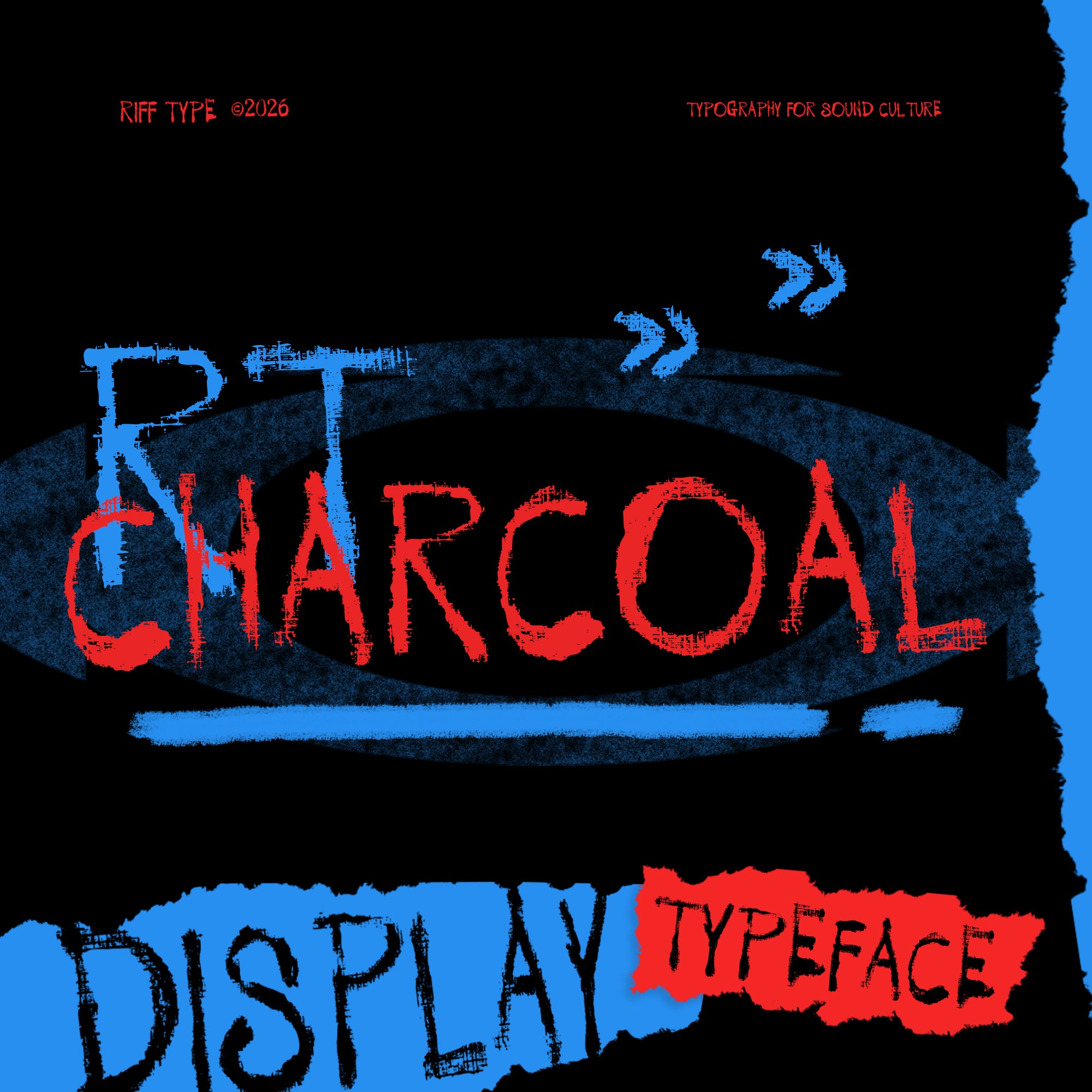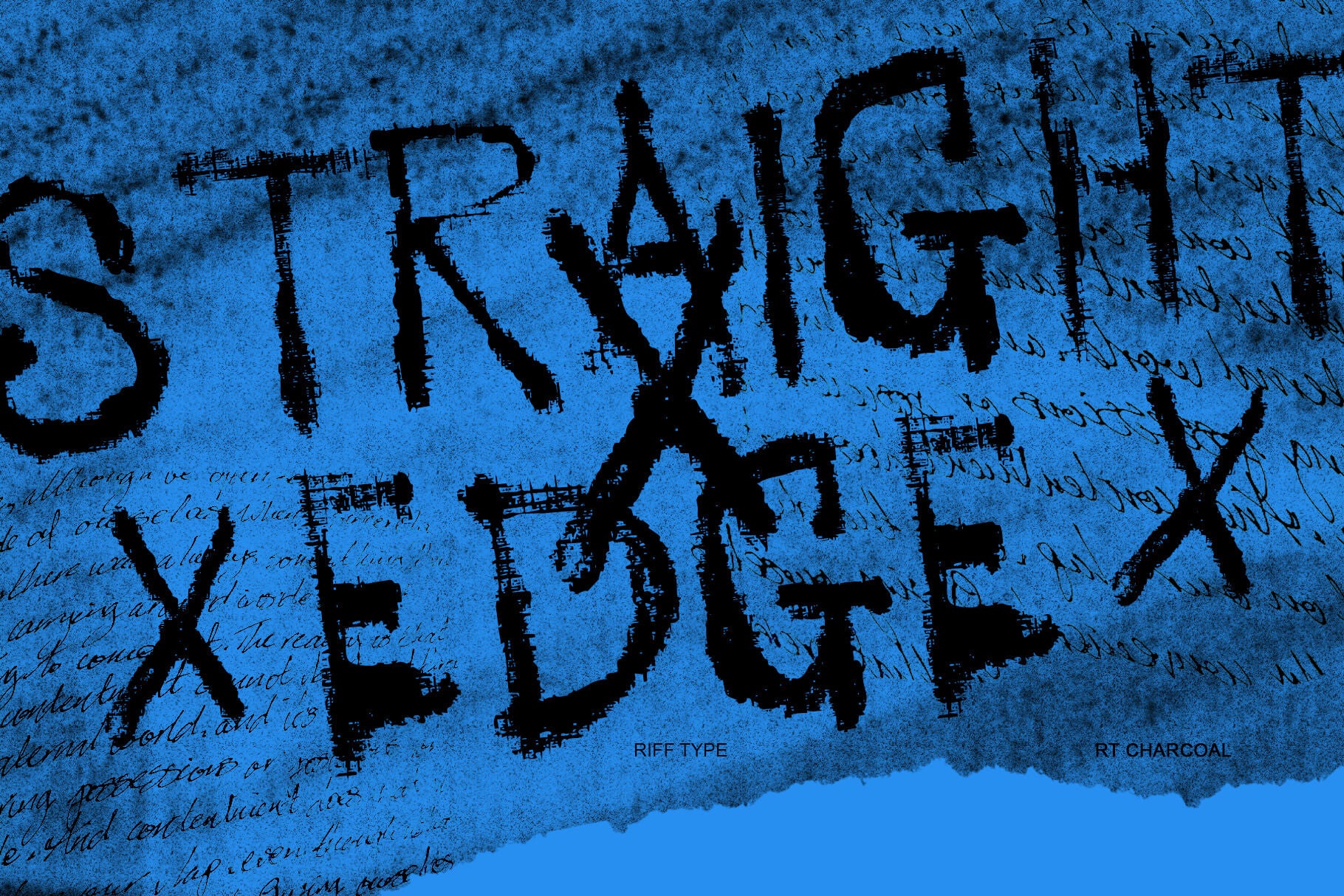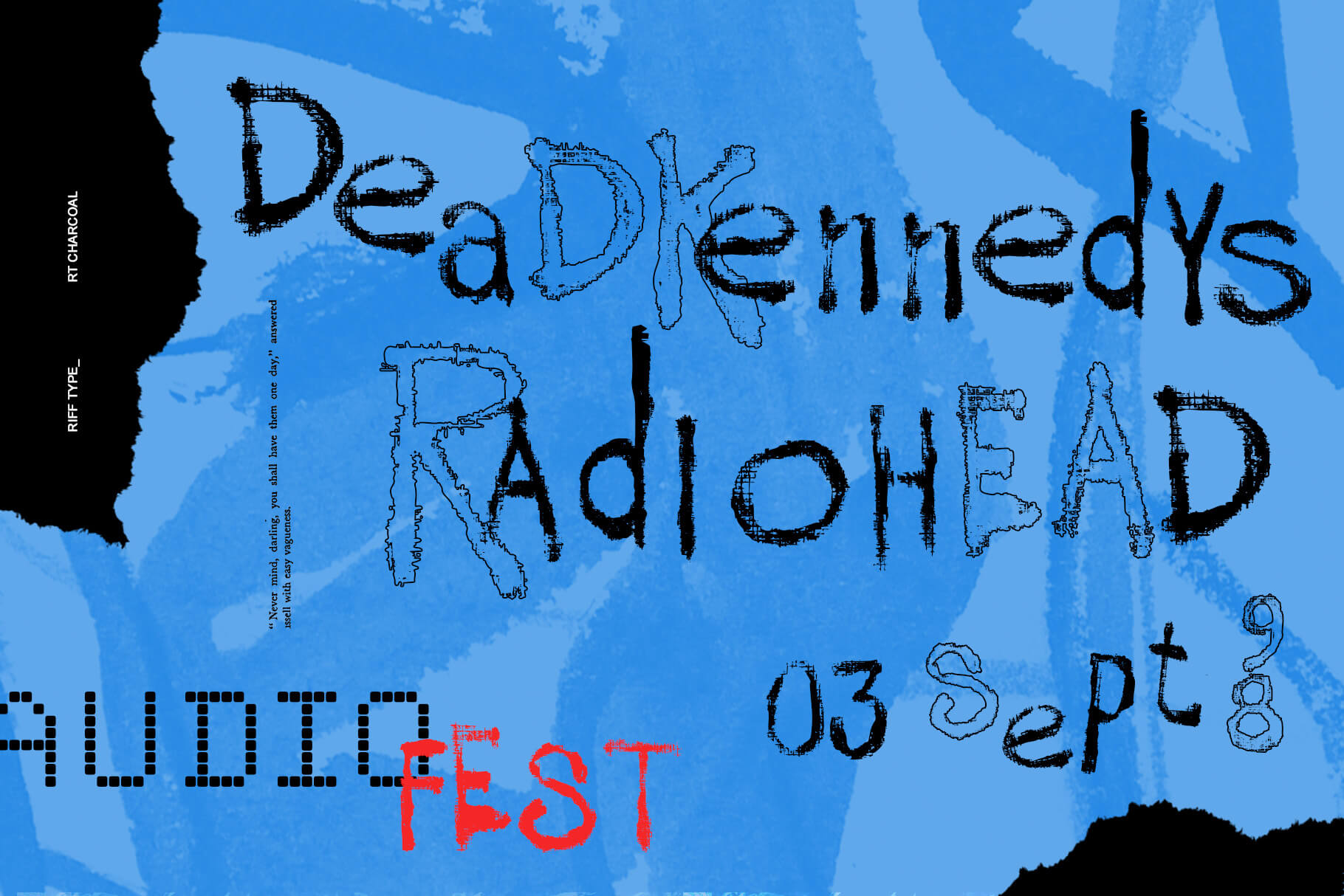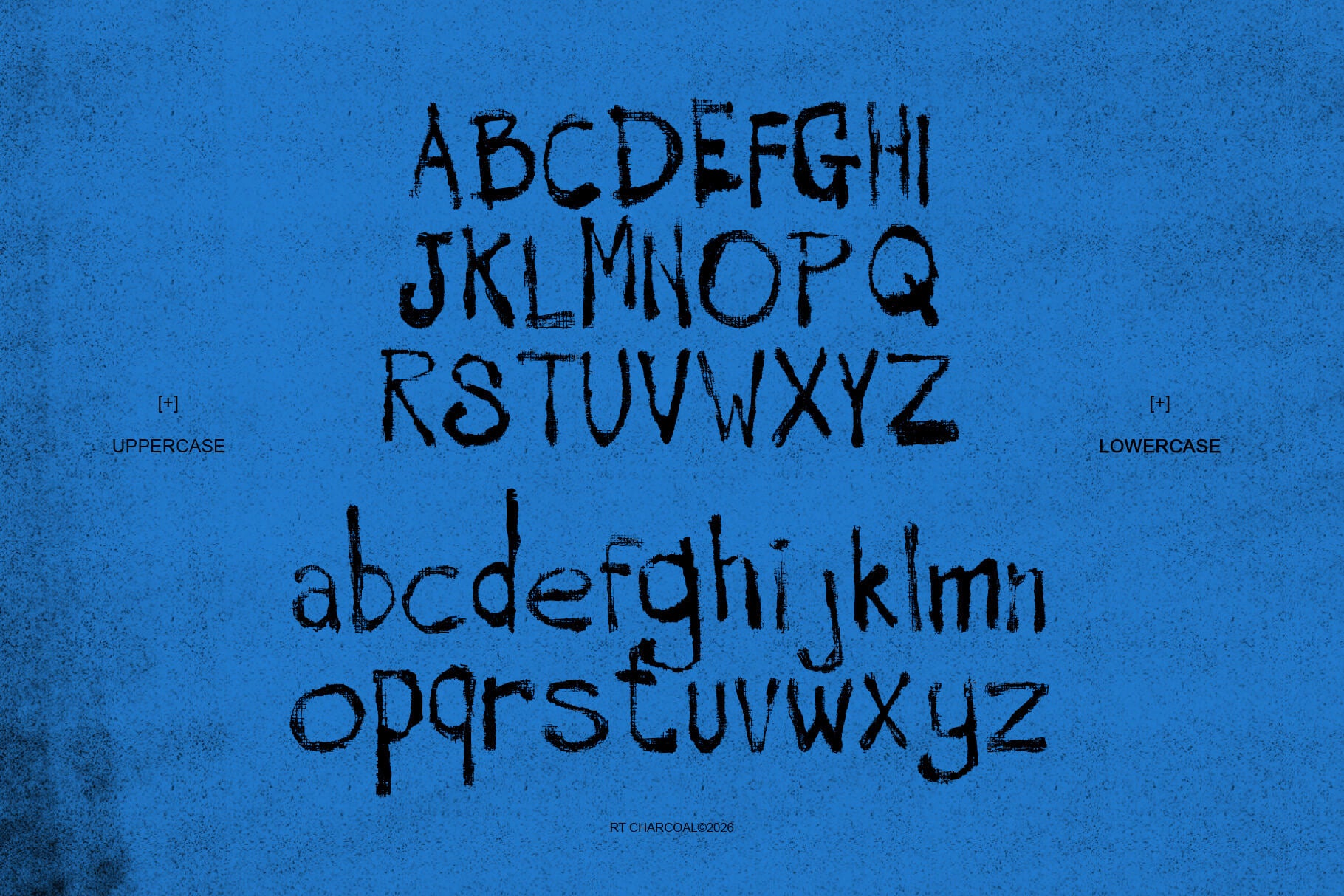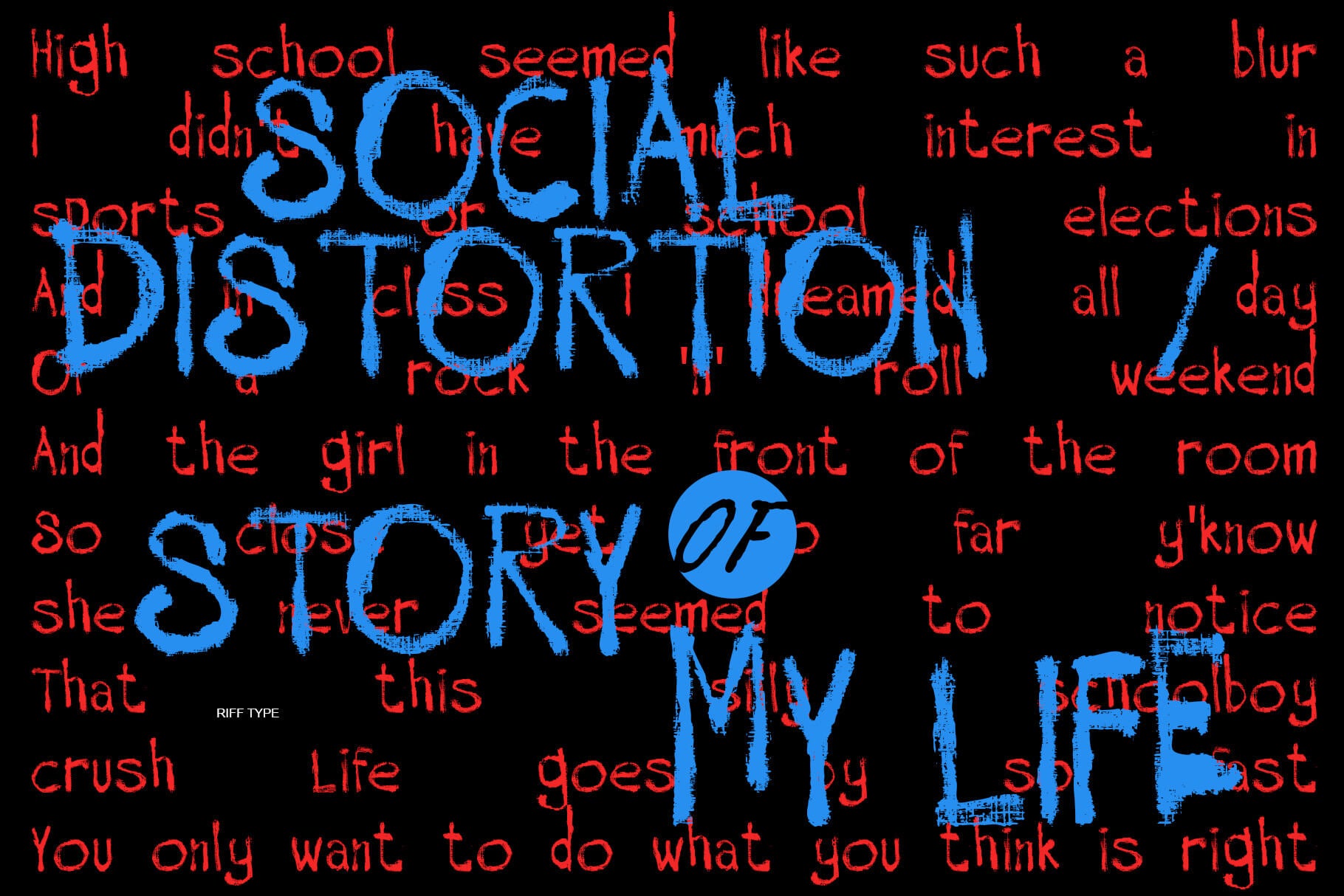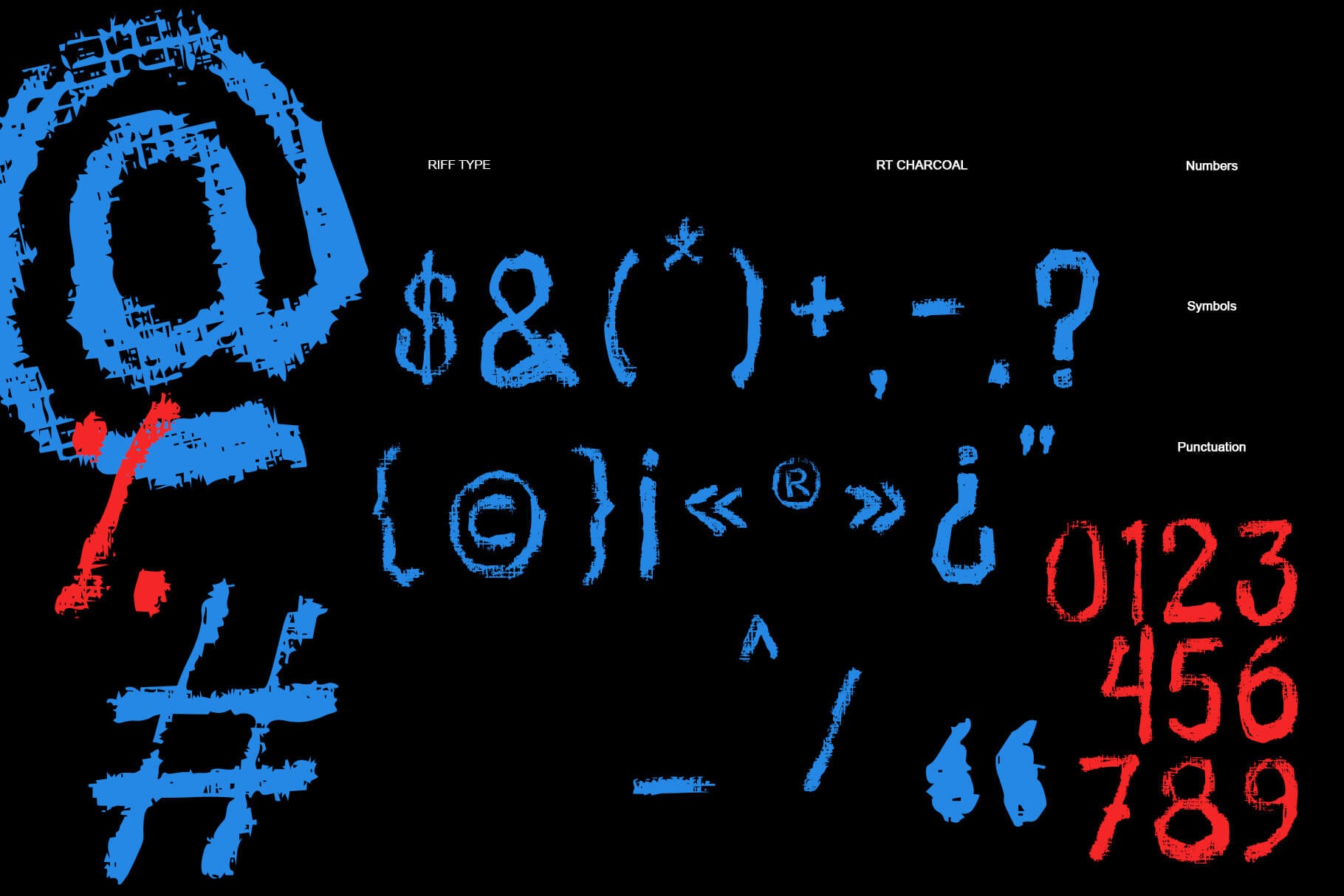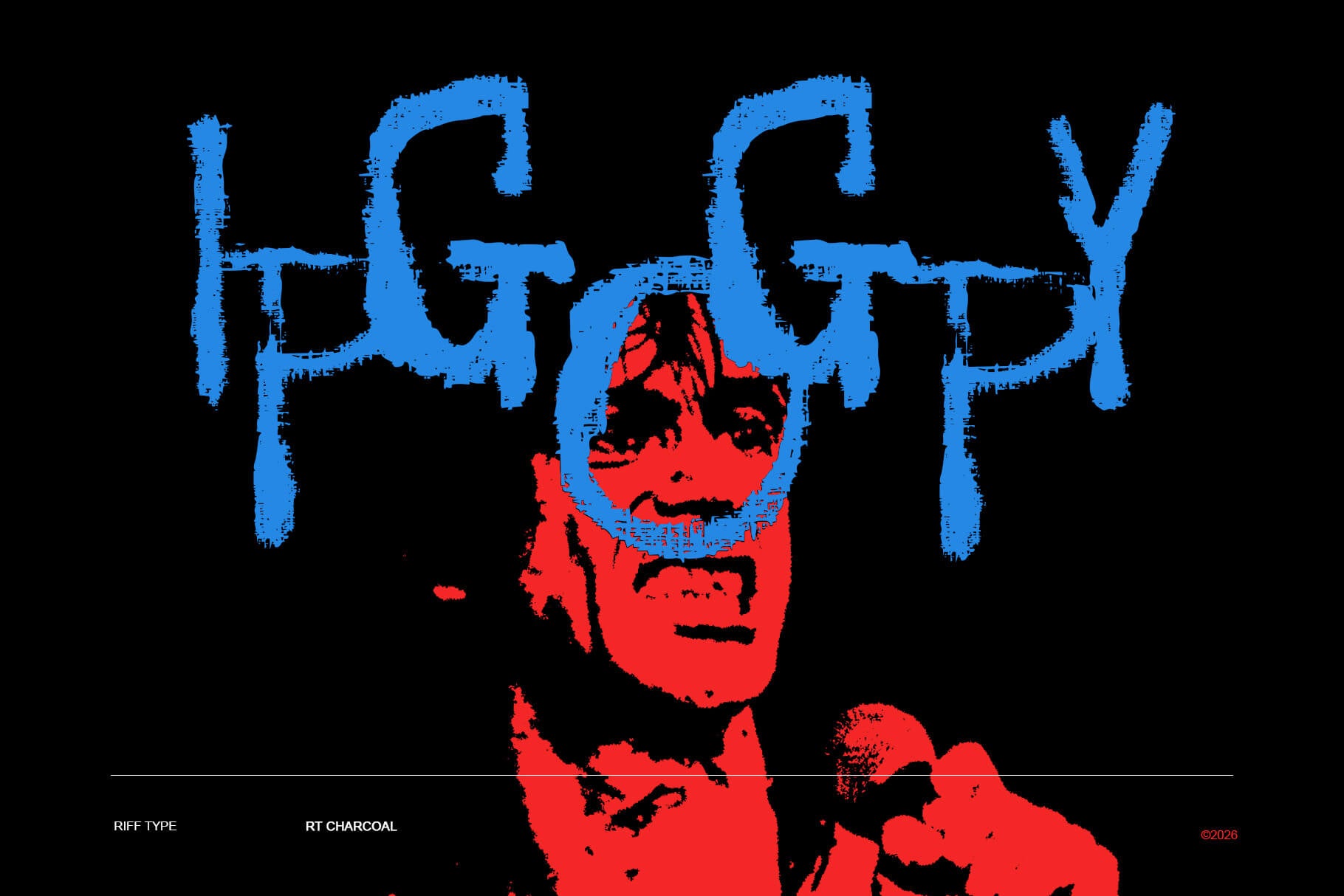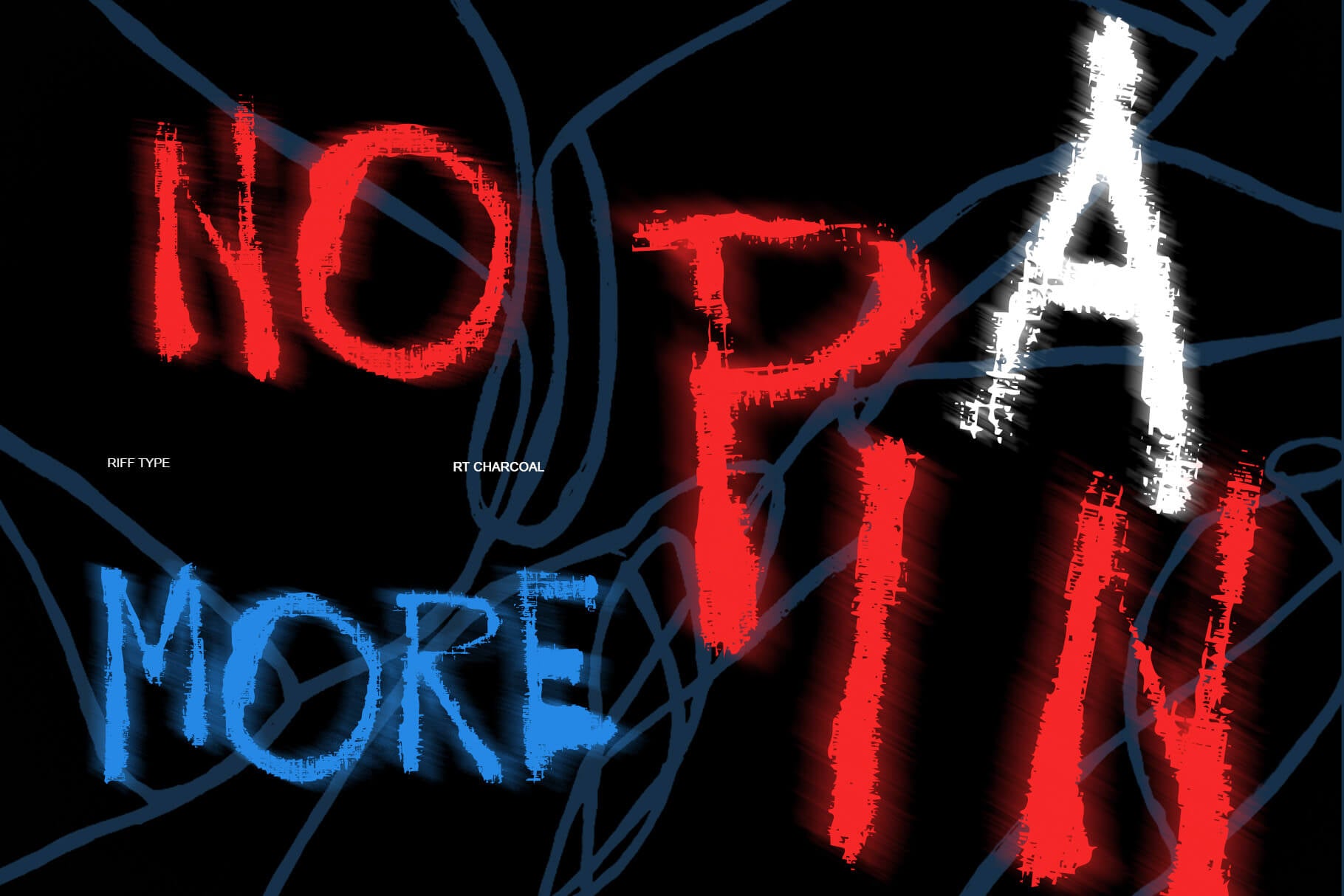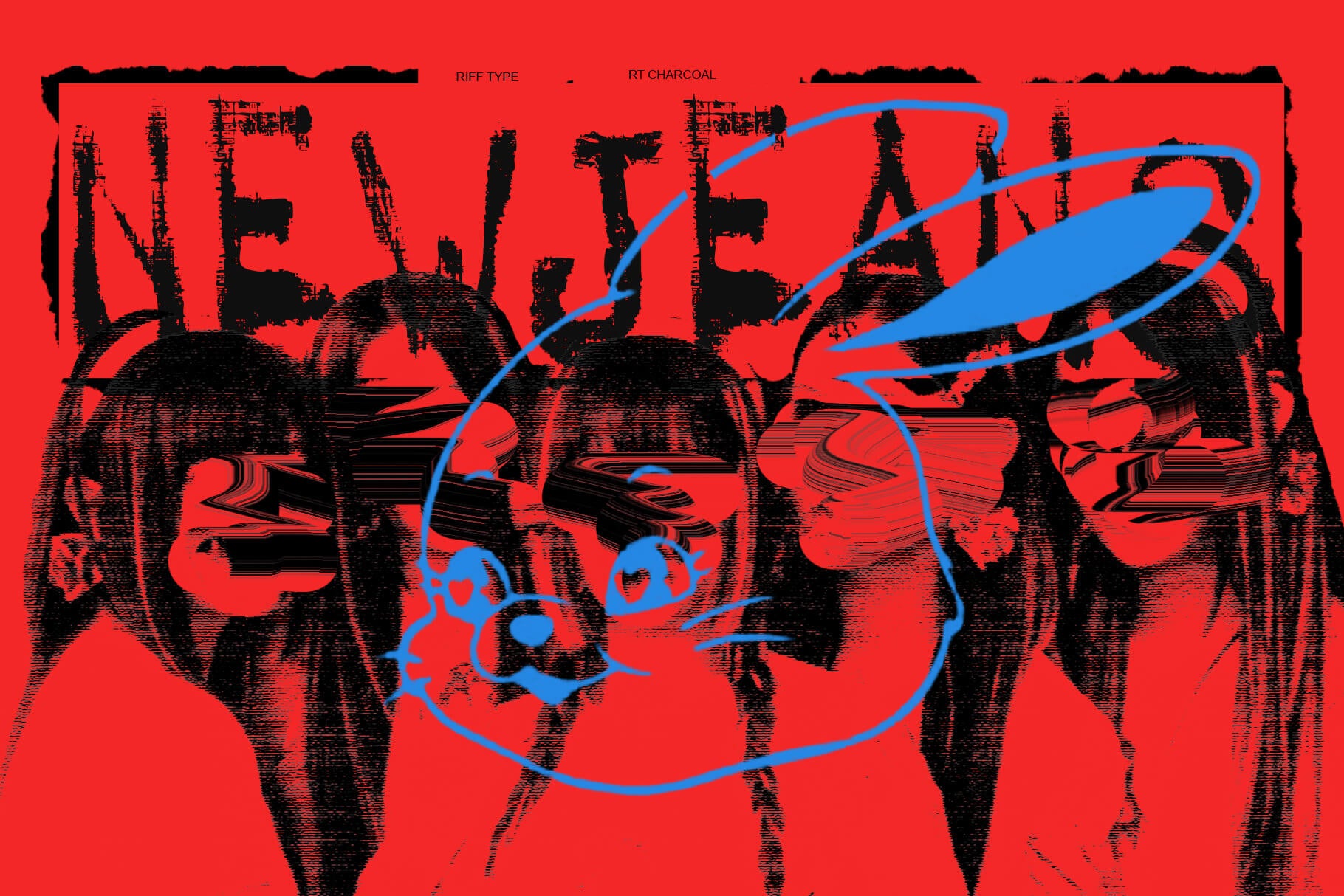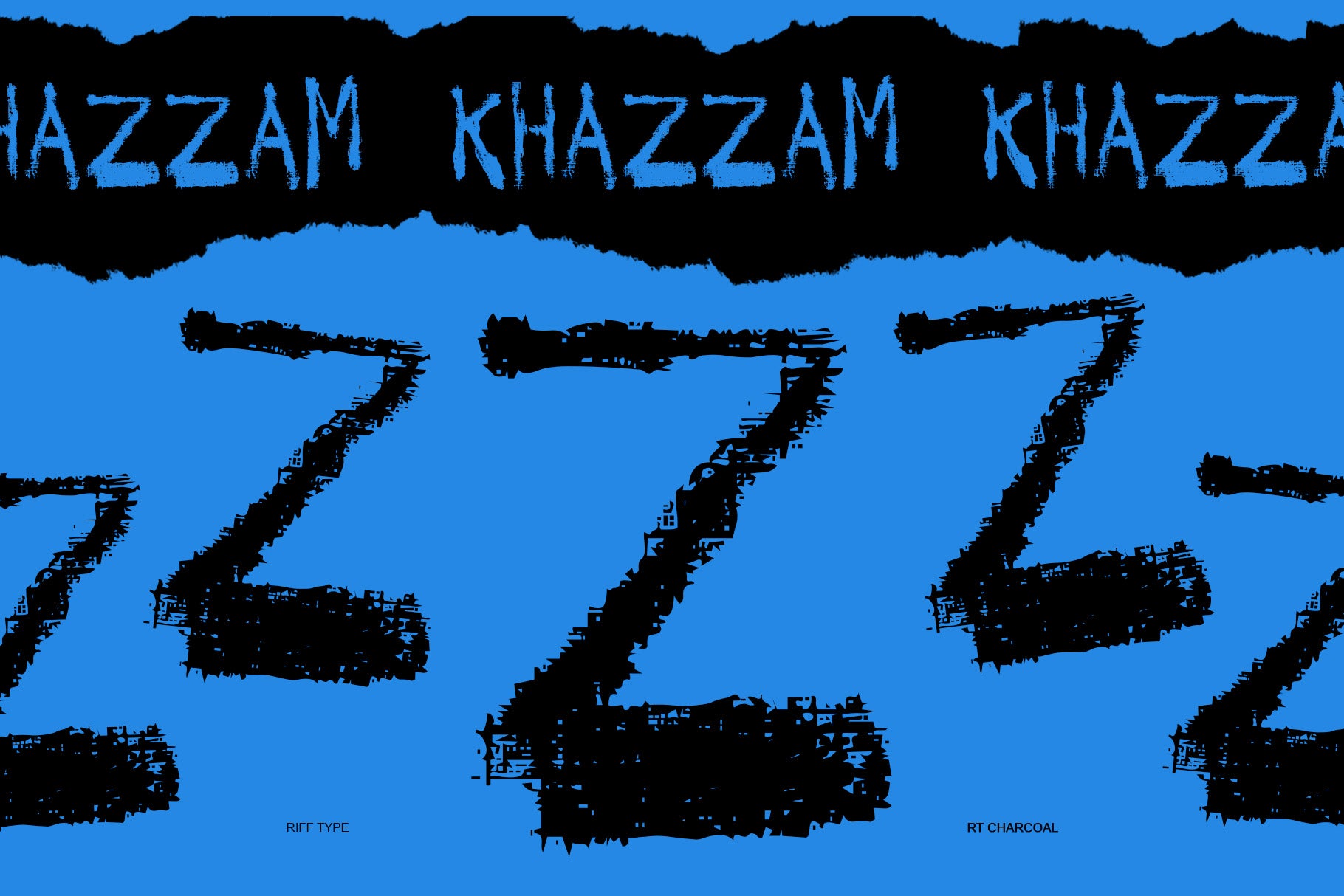
RT Charcoal - Charcoal Briquette Display Typeface
RT Charcoal is a gritty, high-energy display font that embodies the unpolished, fierce spirit of underground subcultures. Mimicking the abrasive friction of raw charcoal on textured paper, this typeface captures the intense, fast-paced nature of DIY movements, making it an absolute weapon for designs that demand attitude, friction, and pure rebellion.
It doesn’t look like it was designed on a screen—it looks like it was scratched onto a concrete wall or a piece of cardboard in a dark alley.
RT Charcoal is a display typeface featuring a gritty, distressed design that mimics the texture of raw charcoal on paper. This bold font is characterized by its rough strokes and hand-drawn appearance, making it suitable for a variety of creative projects.